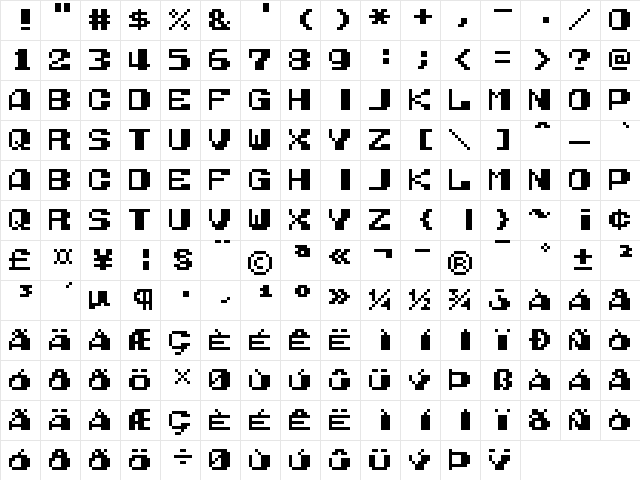
NES Open Tournament Golf Regular
| Designer | TheWolfBunny |
Design Context for NES Open Tournament Golf Typeface
NES Open Tournament Golf takes a measured approach to typography — its balanced proportions and neutral character make it a reliable workhorse for both digital and print work.